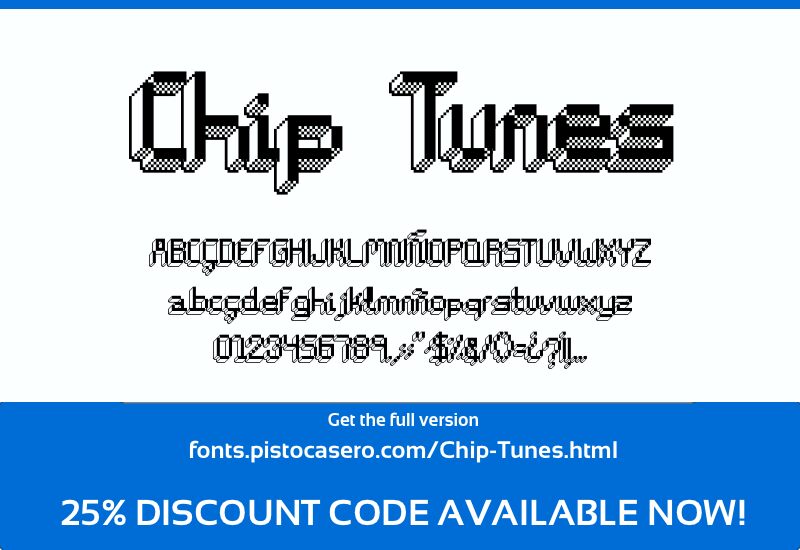
Chip Tunes by Pisto Casero is a free digital 3D display font with hard-edged, stacked, and interlocking forms. Solid faces, hollow cut-ins, and offset contours create a sharp extruded effect throughout the lettering. The silhouettes are compact, dense, angular, and deliberately irregular.
Designers working in retro gaming and electronic music will find it suited to arcade graphics and album covers. Its aggressive geometry also makes a convincing choice for event posters and streetwear merchandise, especially when a mechanical, high-impact title is wanted. Circuit diagrams, angular character art, and industrial illustrations can extend the same cutout shapes into a complete graphic theme.